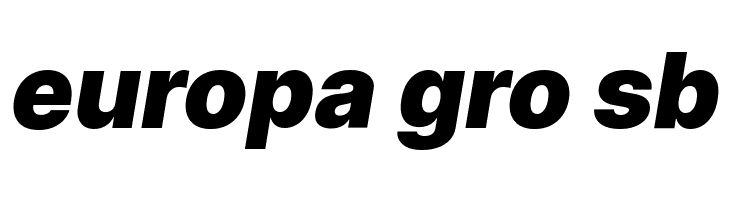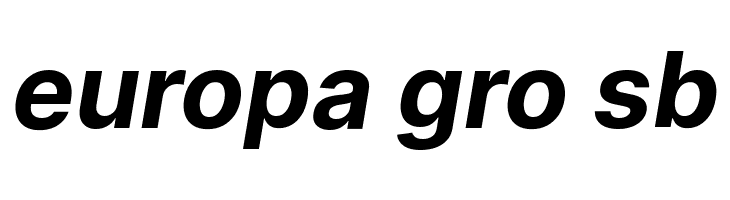
A bold, italicized font with strong, thick strokes and a modern appeal.
A bold, modern sans-serif font with strong, clean lines.
A modern, bold, and italicized typeface with a clean and dynamic design.